Scanning Around With Gene: It's a Wonderful Typeface
A look at the graphic design in and around this Christmas classic
I’ve always been a sucker for Frank Capra movies, a genre lovingly referred to as “Capra-corn.” Who can resist “Mr. Smith Goes to Washington,” “You Can’t Take it With You,” “Mr. Deeds Goes to Town,” “Meet John Doe,” and of course the ever-present Christmas classic “It’s a Wonderful Life?”
So this week I thought I’d look at the graphic design in and around everyone’s favorite Christmas classic starring Jimmy Stewart and Donna Reed. Click on any image for a larger version.
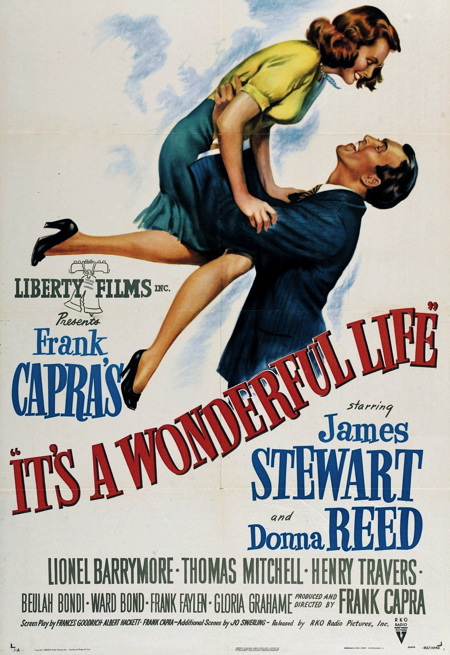
Like so many other 1940s movies, “It’s a Wonderful Life” has hand-lettered opening titles that peel off like pages in a book, one of my favorite title tricks. Despite the colorized versions floating around, the movie was most definitely filmed in black and white. It was released in 1946.
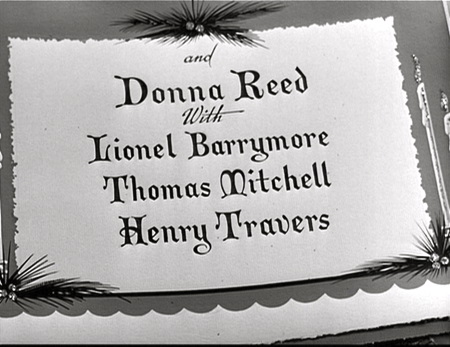
Originally intended as a vehicle for Cary Grant, “It’s a Wonderful Life” was based on a short story called “The Greatest Gift” by Philip Van Doren Stern. Unable to find a publisher for his short story, Van Doren self-published “The Greatest Gift” as a Christmas card in 1939. He sent it to approximately 200 people and it caught the eye of an RKO producer, who convinced the studio to buy the rights for $10,000.
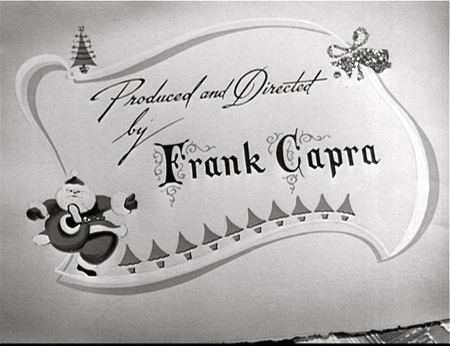
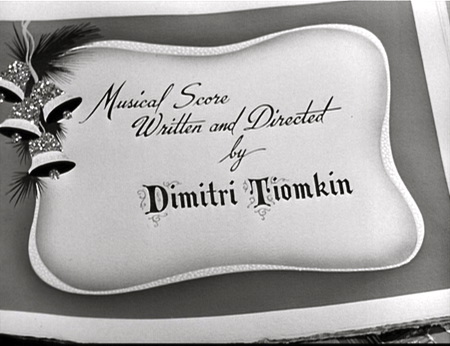
But Cary Grant was busy, so the story and the rights ended up with Capra’s production company, Liberty Films, which made the movie for approximately $3 million.
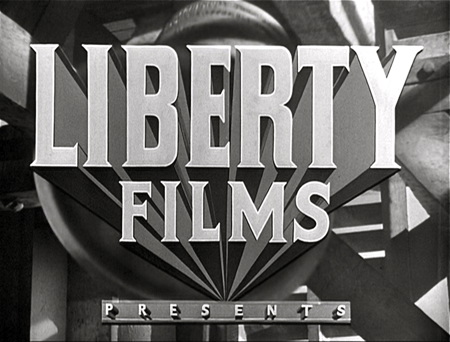
When it was released in 1946, the movie opened to mixed reviews and mediocre success. It wasn’t until much later, when it showed up on television each holiday season, that the movie came into its own as a true classic.
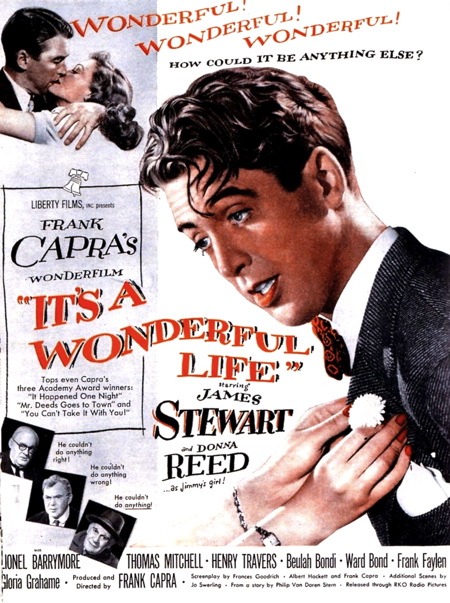
The set of Bedford Falls (and Pottersville) was built on RKO’s ranch in Encino and is thought by the residents of Seneca Falls, New York, to be based on their town (which Capra did visit in 1945). Each year Seneca Falls holds an “It’s a Wonderful Life” Festival. It’s also home to the Hotel Clarence, named after the guardian angel in the movie.
The original set was destroyed in the 1950s, but the gymnasium floor with the pool underneath still exists at Beverly Hills High School, where those scenes were filmed.
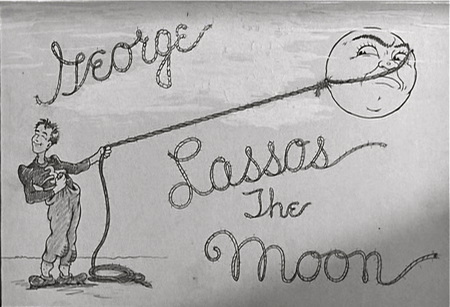
There are a lot of great neon signs in the Pottersville version of the town, the implication being that neon is tawdry and associated with cruder forms of entertainment, pawn shops, and the like.
Thanks to copyright problems over the years, the movie has had a lot of different owners, and various versions have been released worldwide. Here are just a few of the foreign-language posters for the film.
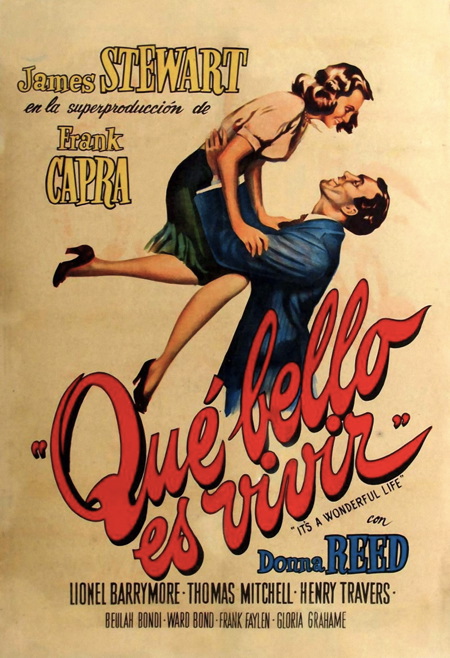
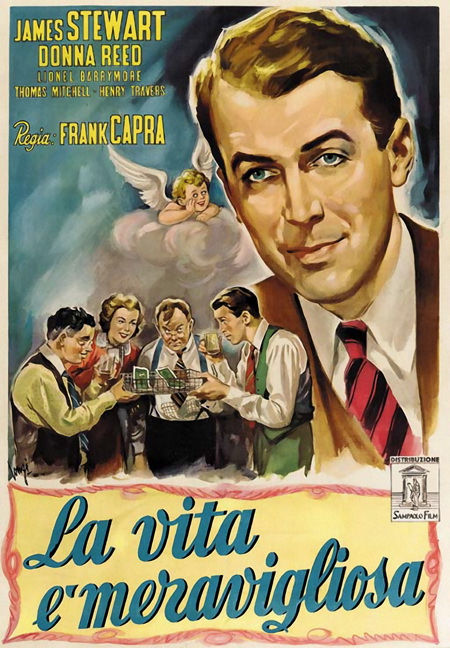
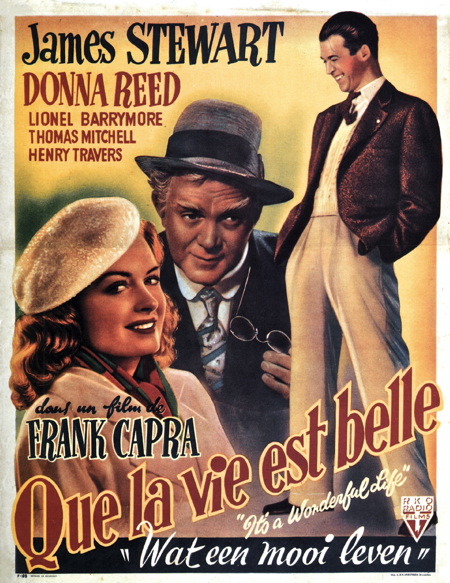
The original theatrical trailer, from which these screen shots come, pitched the movie more as a romance than a moral tale. While not generally controversial, the FBI did receive at least one complaint at the time that “It’s a Wonderful Life” was “Communist propaganda” because it portrayed bankers as evil and insensitive.